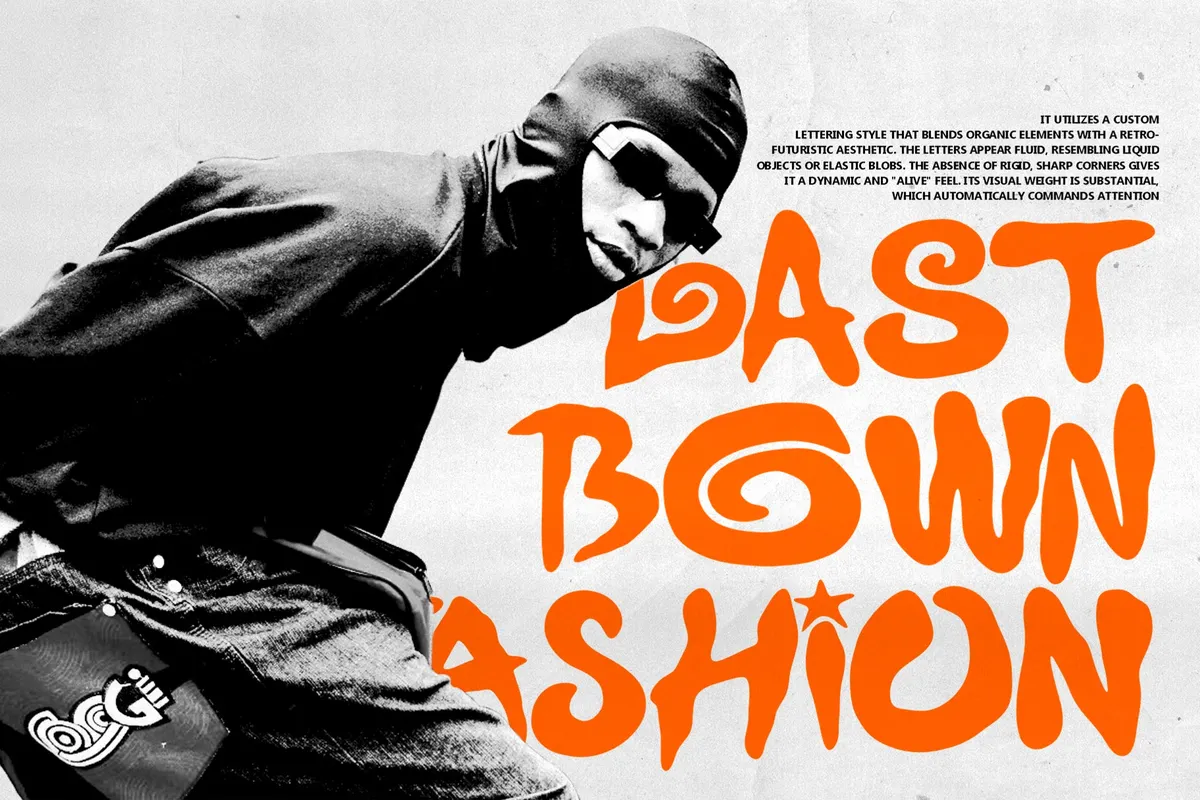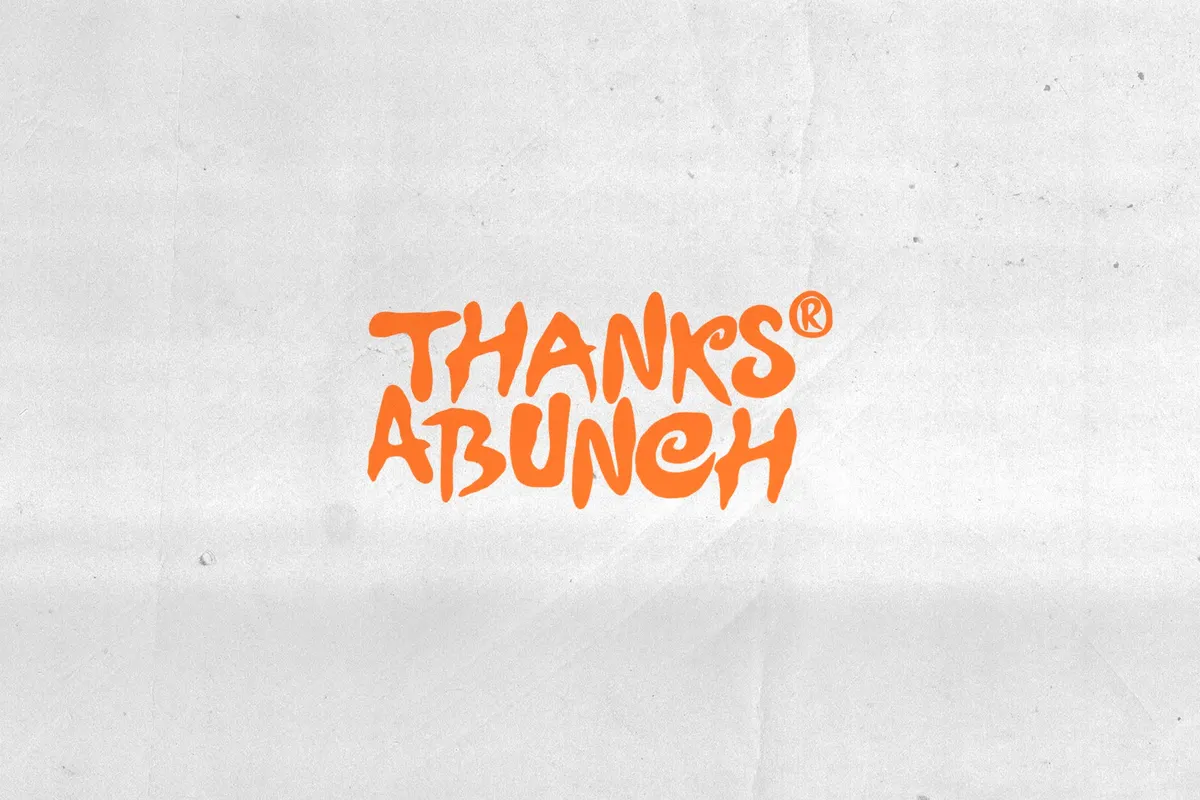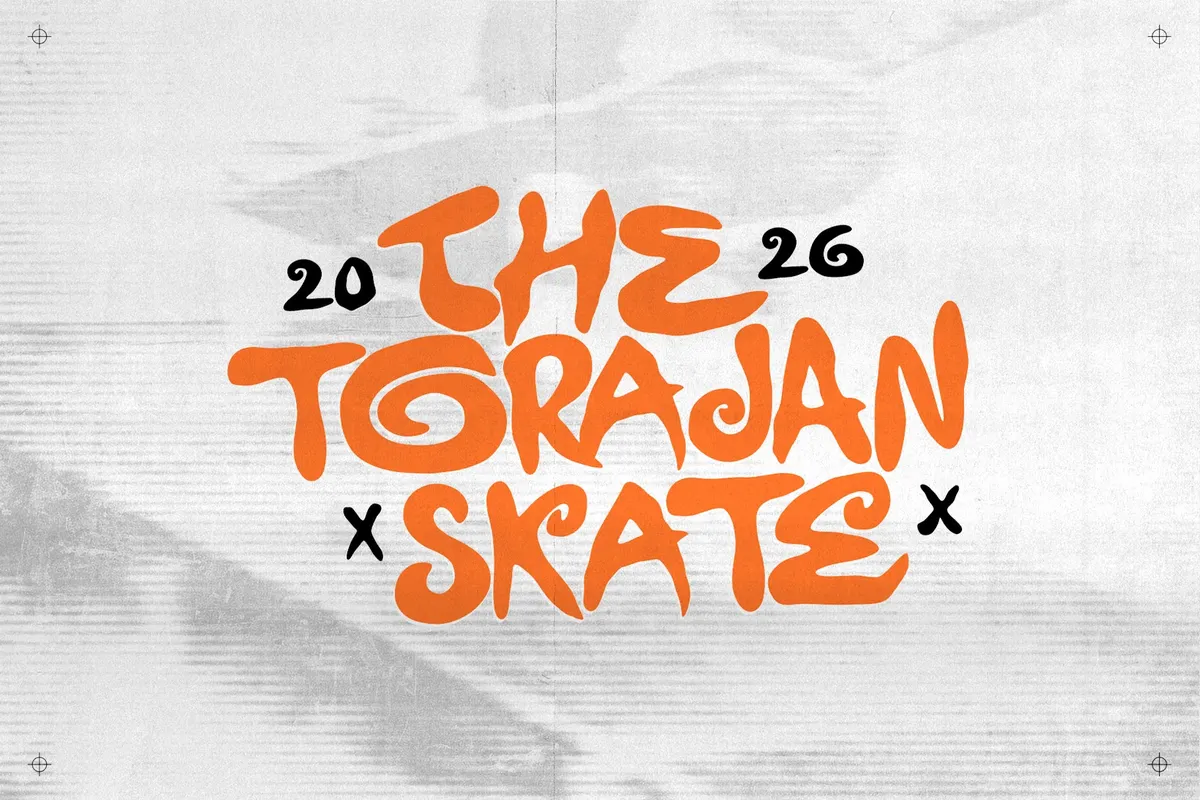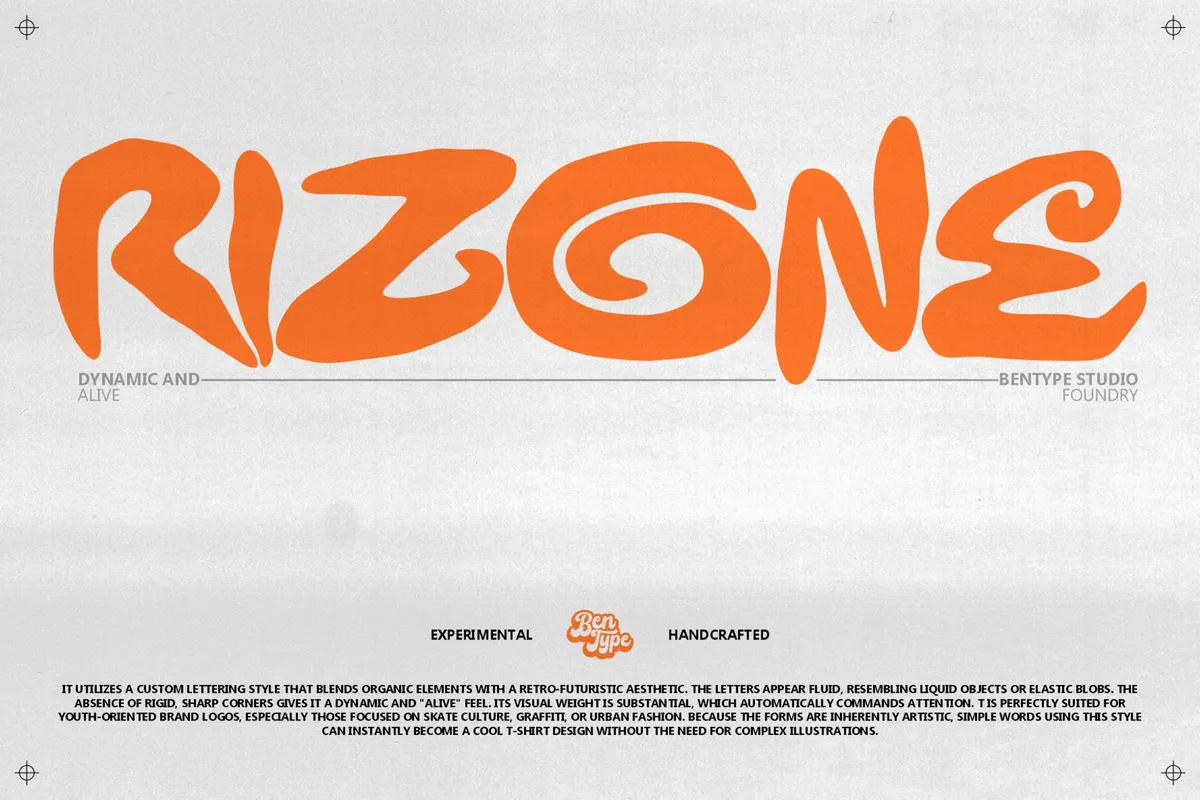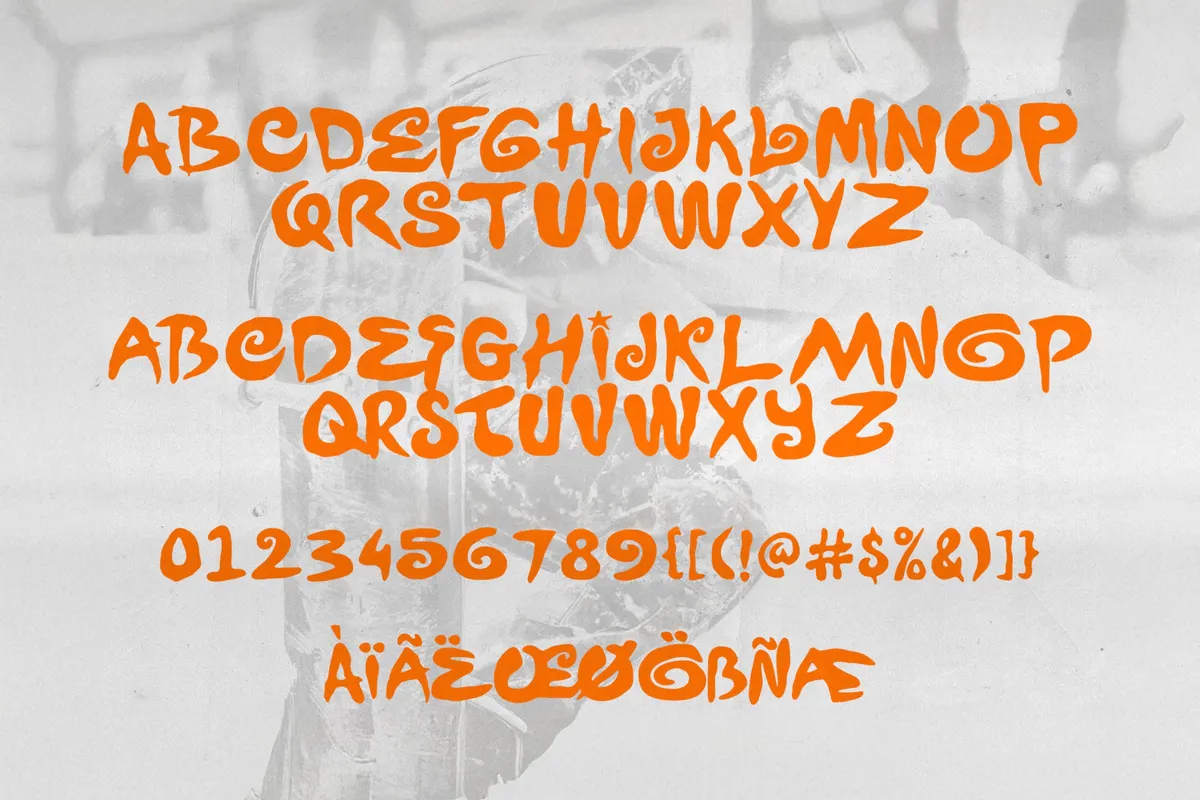
Rizone - Bold Graffiti Display Font
Rizone
Rizone is a bold graffiti display font built from liquid, elastic-looking letterforms with a retro-futuristic edge. The strokes swell into thick, rounded bodies and curl off into loose ribbon terminals; the total absence of sharp corners keeps the whole alphabet moving like it's still wet.
It works best in short, punchy word marks that can carry a whole design on their own. Use it for streetwear logos, skate brand identities, graffiti-style posters, album covers for hip-hop, funk, or electronic releases, apparel prints, and urban event flyers.